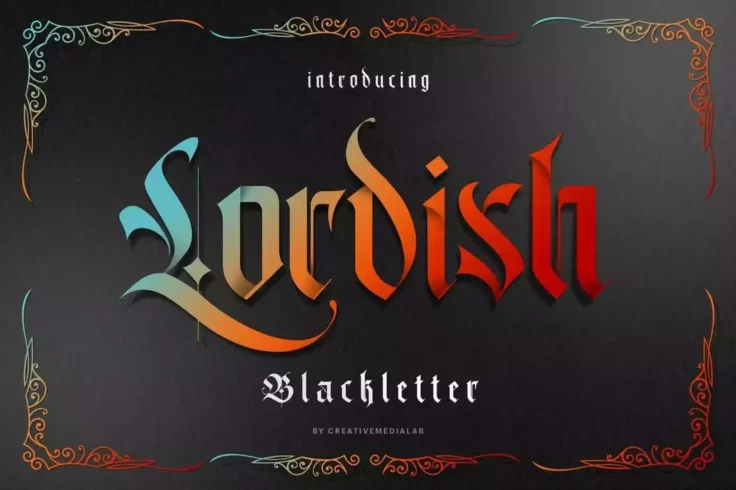
30+ Best Blackletter Fonts
Blackletter fonts often have an ornate, calligraphic appearance, featuring dense strokes and sharp angles. Originally from medieval Europe, these typefaces often convey a sense of tradition and are popular in certificates, logos, and headlines.
Cattedrale Font
Cattedrale is a unique font that is perfect for Gothic-themed projects. With its blackletter design and 4 different styles, this font is a great choic...
The Bjorke Font
Bjorke is a handmade font with a gothic twist that is sure to make any project stand out. This font features a unique and organic design that gives it...
Black Baron Gothic Font
Black Baron is a modern blackletter font that draws inspiration from traditional Gothic and old English typefaces. Designed to create a dramatic and m...
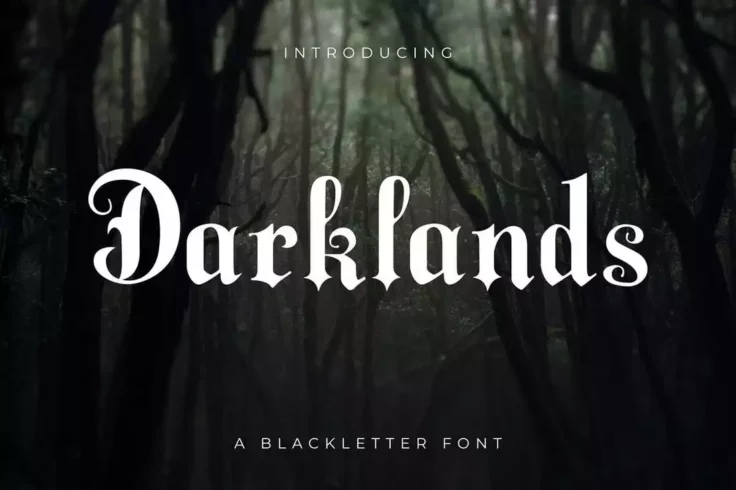
Darklands Blackletter Font
Darklands is an incredibly unique and eye-catching blackletter font that truly stands out from the crowd. With its elegant and modern design, it combi...
Glaive Typeface
Glaive is a unique and edgy typeface that is inspired by the music genre of rock and metal. Its bold and strong design captures the raw energy and pow...
Pleasure Blackletter Font
Wanting your designs to stand out from the pack? We recommend giving Pleasure a shot. It’s a modern blackletter font with uppercase letters, num...
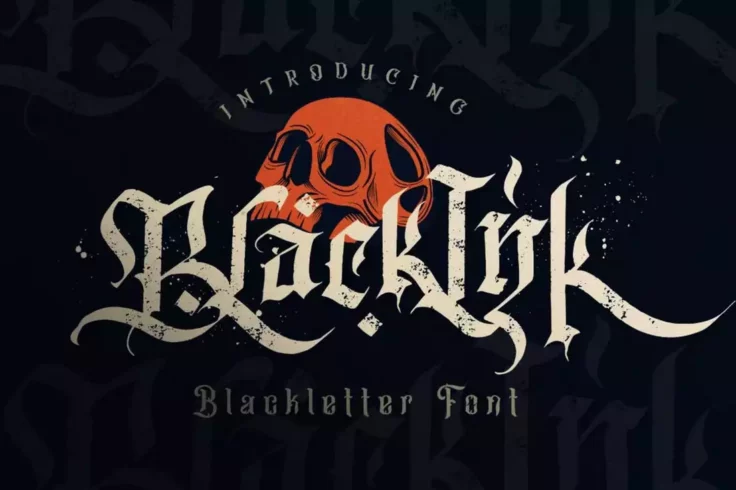
Blackink Blackletter Font
Blackink is a creative blackletter font that features a design inspired by pirate movies and designs. The font features a hand-painted design and it c...
Black Cameo Font
As soon as you see this font you can see it’s a great choice for designing titles, logos, and posters for rock music festivals and bands. The font i...
Rumblekill Font
Rumblekill is a vintage blackletter font that features letters with rounded edges. It’s a creative take on a classic typeface. This font is great fo...
Cameo Sweet Font
Cameo is a stylish gothic font you can use with your creative design projects. It features a set of beautiful characters with long stylistic swashes a...
Blacksix Rock Font
Introducing the Blacksix Rock – Blackletter & Funky Font, your go-to choice for an audacious and genuine display font. It embraces a palpab...
Chover the Joung Font
The big bold letters makes this font truly one of a kind. It has the perfect letter design for crafting big poster titles, website headers, and even f...
Reclaim Glory Font
For a cool and gothic look, consider Reclaim Glory from Envato Elements. It’s a solid font for nearly any kind of branding design from labels, l...
La Forest Typeface
This is an elegant Blackletter display font that comes in 4 different styles: Regular, grunge, inline, and inline grunge. Making it suitable for your ...
Winsor Blackletter Typeface
Winsor features a mixed modern-vintage design that gives it a unique look and feel. The font is perfect for crafting logos and badges as well as moder...
Rengkox Font
Nothing beats the classic vintage look when it comes to designing labels and badges for certain products. Be sure to use this blackletter font to add ...
Ventralie Blackletter Font
Suitable for virtually any design requirement you may have, Ventralie, is an ideal Blackletter font for logos, t-shirts, tattoos, book covers, and alb...
Incognito Font
Incognito is a modern gothic font that draws inspiration from the world of tattoos and kustom kulture. With its bold and intricate design, this font i...
Roback Blackletter Font
You can use this blackletter font to craft cool-looking product packaging designs and labels for many different types of products. Although, it’s mo...
Helmswald Post Font
This font follows a design similar to the logo of the Washington Post. Although, you can use it with various types of designs including logo design, w...
inuTattoo Script Font
If you’re looking for a font to create a unique tattoo design, this font will come in handy. It will also work well with other types of designs as w...
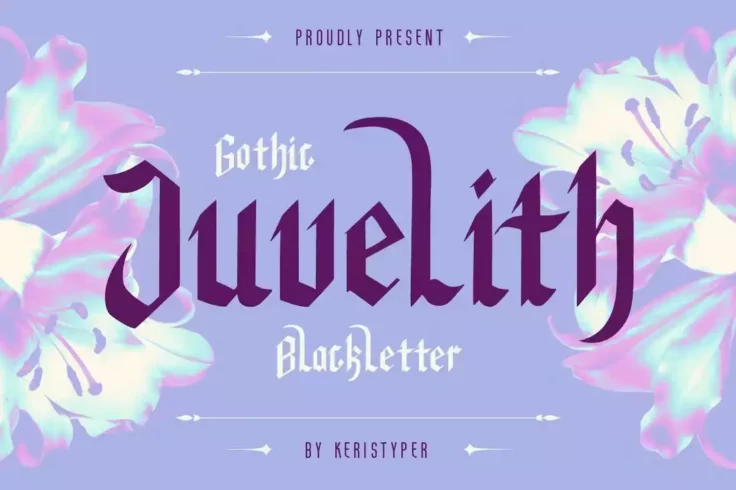
Juvelith Font
This font features a very stylish and modern take on the classic blackletter design. It’s perfect for crafting logos and designs for fashion and lif...
Psalta Font
This blackletter font also uses a narrow and condensed design that makes it the perfect choice for designing a modern website header or a logo design....
Kagok Blackletter Font
If you’re looking for a classic blackletter font with a cool modern take, this font is made just for you. It features a stylish letter design with c...
Huntly Font
A very nice choice for creative projects, Huntly is a distinct Blackletter font that will give a unique look to your designs. It comes with a range of...
Rajjah Familia Blackletter Font Family
This is a family of modern fonts featuring blackletter designs. This font comes with multiple font weights featuring gothic designs inspired by the 17...